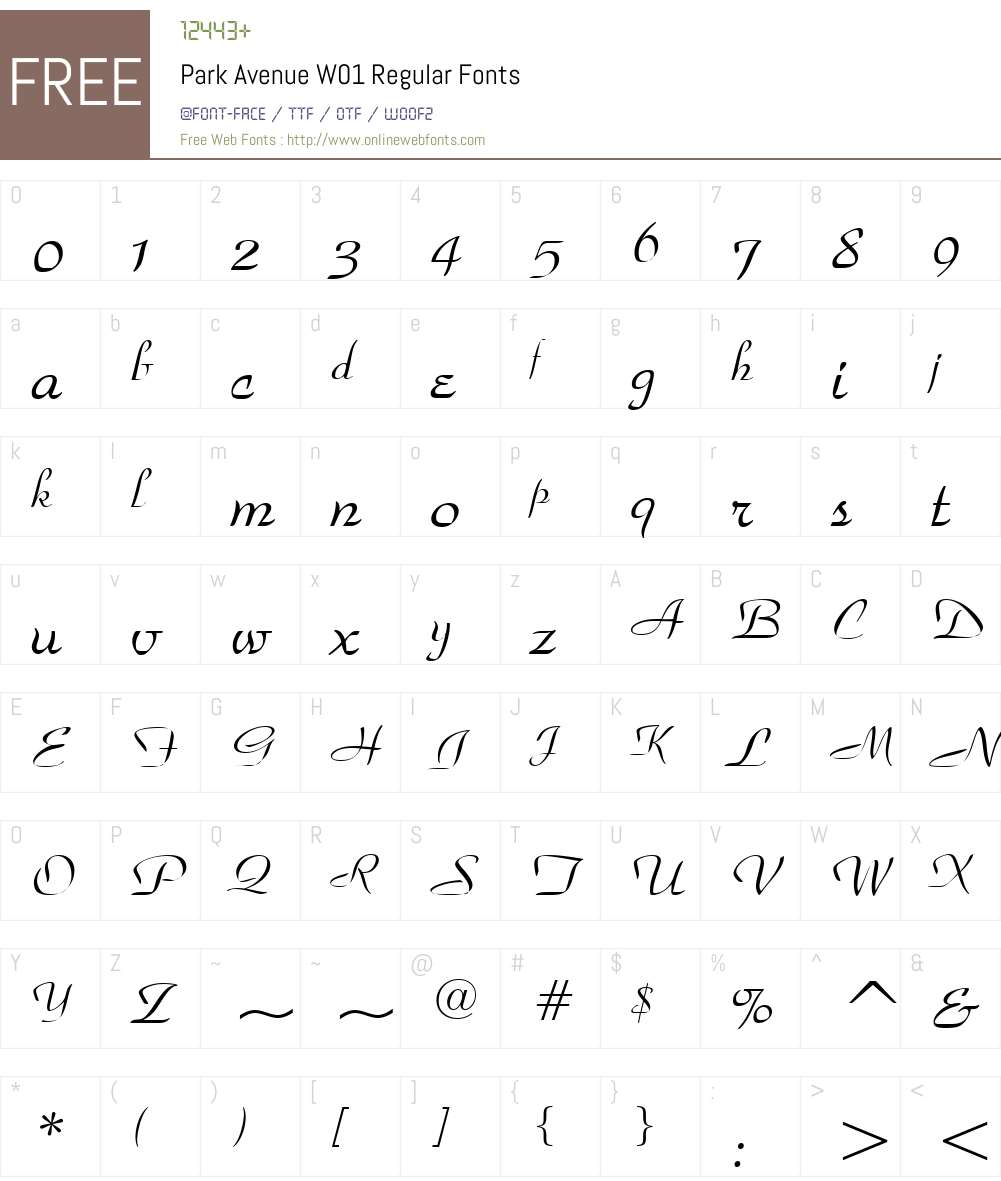
Smith in 1933 up to 1 family supports at least 21 languages (std / ot ttf) available licenses for all styles: The ascenders and descenders of this script font are long; Download for free park avenue regular.
What Is The Park Avenue® Font?
Park Avenue Is A Lighthearted Contemporary Script Designed By Robert E.